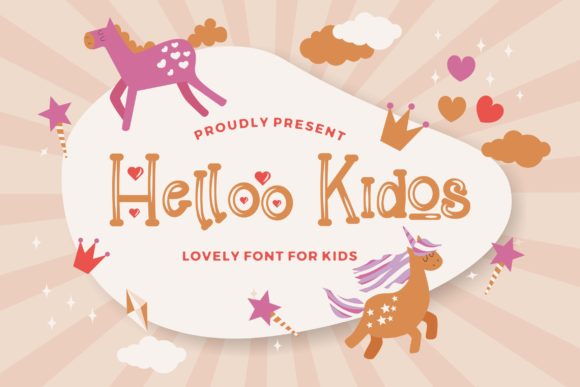
Brace yourself for an enchanting journey into the world of Helloo Kidos, a display font family crafted with meticulous attention to detail by the skilled artisans at StringLabs. This extraordinary creation is a whimsical and delightful symphony of characters, each imbued with a unique personality that will ignite your imagination and captivate your audience.
Immerse yourself in the vibrant energy of Helloo Kidos, a font family designed to evoke sheer joy and boundless creativity. Allow your words to dance upon the page, brimming with playful charm and infectious enthusiasm. Unleash your inner child and let your imagination soar as you weave your stories and messages with this extraordinary font.
Helloo Kidos is more than just a font; it's an experience. It's a chance to tap into the boundless creativity that lies within you, to let your personality shine through in every word you type, every design you create, and every project you undertake. It's a font that brings a smile to your face and a spark to your eyes, reminding you that life is meant to be enjoyed.
With Helloo Kidos, the possibilities are endless. Craft eye-catching logos that pop off the screen, leaving a lasting impression on your customers. Design vibrant posters and flyers that demand attention, grabbing the eyes of passersby and drawing them into your world. Create enchanting invitations and greeting cards that spread warmth and joy, making every occasion extra special.
The beauty of Helloo Kidos lies in its versatility. Its playful nature makes it an ideal choice for whimsical children's books, captivating storybooks, and engaging educational materials. Its cheerful spirit brings life to presentations, social media posts, and website designs, leaving an unforgettable impression on your audience.
Join the countless individuals who have discovered the magic of Helloo Kidos and transformed their creative endeavors into extraordinary masterpieces. Let this remarkable font family be your trusted companion on your creative journey, igniting your imagination and propelling your projects to new heights of success. Embrace the joy of Helloo Kidos and let your creativity flourish like never before!